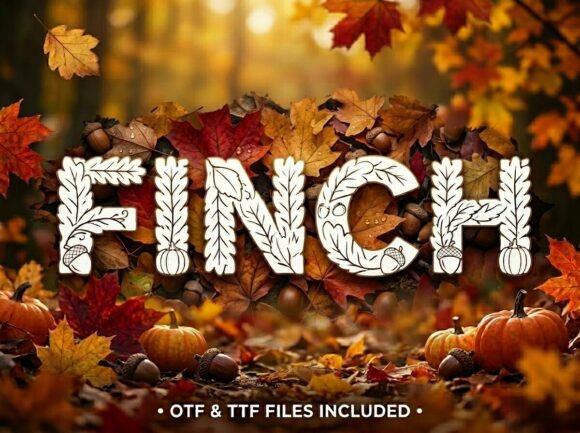
Introducing Finch Font: A Stunning Decorative Display Font
Are you tired of using the same old fonts for your creative projects? Look no further than Finch Font, a unique and artistic display font designed to make a statement. With its strong visual personality and decorative elements, this font is perfect for creators who want to break away from the ordinary and add a touch of elegance to their work.
What Makes Finch Font Special?
Finch Font is a versatile decorative display font that features unique artistic elements, making it ideal for bold headlines, artistic logos, and creative packaging. Its strong visual personality and polished finish ensure that your designs look professional and sophisticated. Whether you’re a designer, craftsperson, or DIY enthusiast, Finch Font is the perfect choice for anyone looking to add a touch of creativity to their work.
Before purchasing Finch Font, please note that it’s an ALL-CAPS (Uppercase Only) display typeface. This means that it does not include lowercase letters. It’s specifically designed for high-impact headlines, logos, and decorative initials where every letter is a work of art. This unique design feature makes Finch Font perfect for creating eye-catching titles, headings, and decorative elements that demand attention.
Use Cases for Finch Font
Finch Font is perfect for a variety of creative projects, including:
• Headlines and Titles: Use Finch Font to create bold and eye-catching headlines that grab attention.
• Logos and Branding: Add a touch of elegance to your logos and branding with Finch Font’s unique artistic elements.
• Packaging and Product Design: Use Finch Font to create creative and eye-catching packaging that stands out on store shelves.
• Art and Illustration: Finch Font is perfect for adding decorative elements to your artwork and illustrations.
Why Choose Finch Font?
Finch Font offers a unique combination of style, versatility, and professionalism, making it the perfect choice for creators who want to elevate their designs. Here are just a few reasons why you should choose Finch Font:
• Unique Artistic Elements: Finch Font features unique artistic elements that will add a touch of elegance to your designs.
• Strong Visual Personality: This font has a strong visual personality that will make your designs stand out.
• Professional and Polished Finish: Finch Font maintains a professional and polished finish, ensuring that your designs look sophisticated and high-end.
Finch Font is a stunning decorative display font that’s perfect for creators who want to break away from the ordinary and add a touch of elegance to their work. With its unique artistic elements, strong visual personality, and professional finish, Finch Font is ideal for a variety of creative projects, from headlines and logos to packaging and product design. So why wait? Purchase Finch Font today and take your designs to the next level!